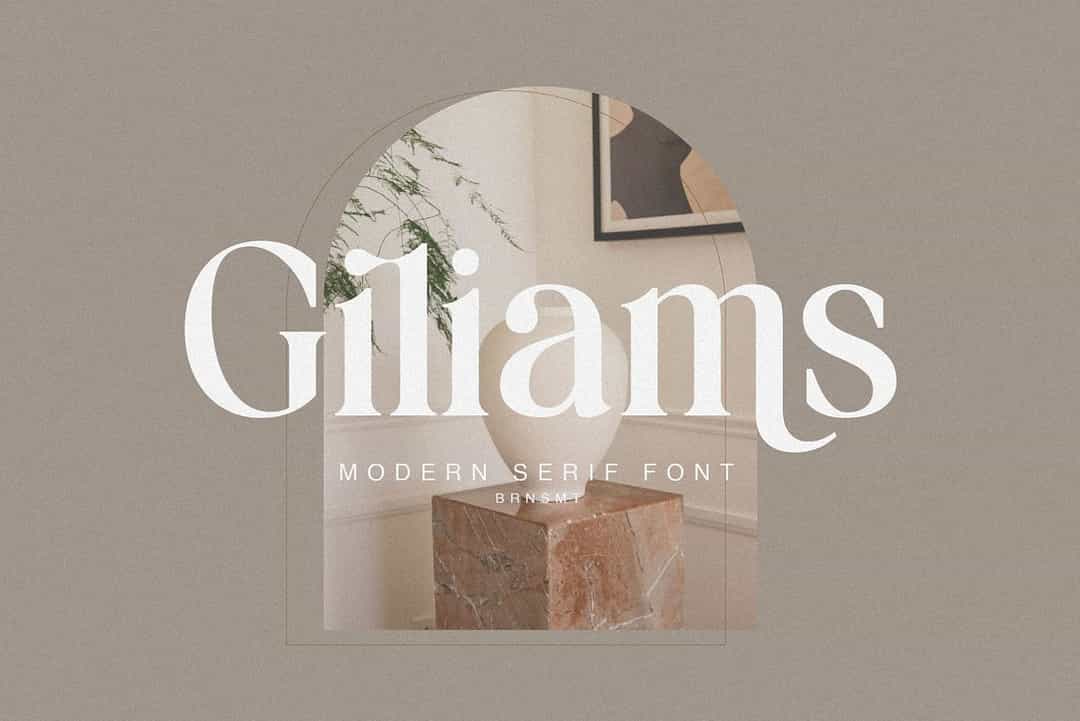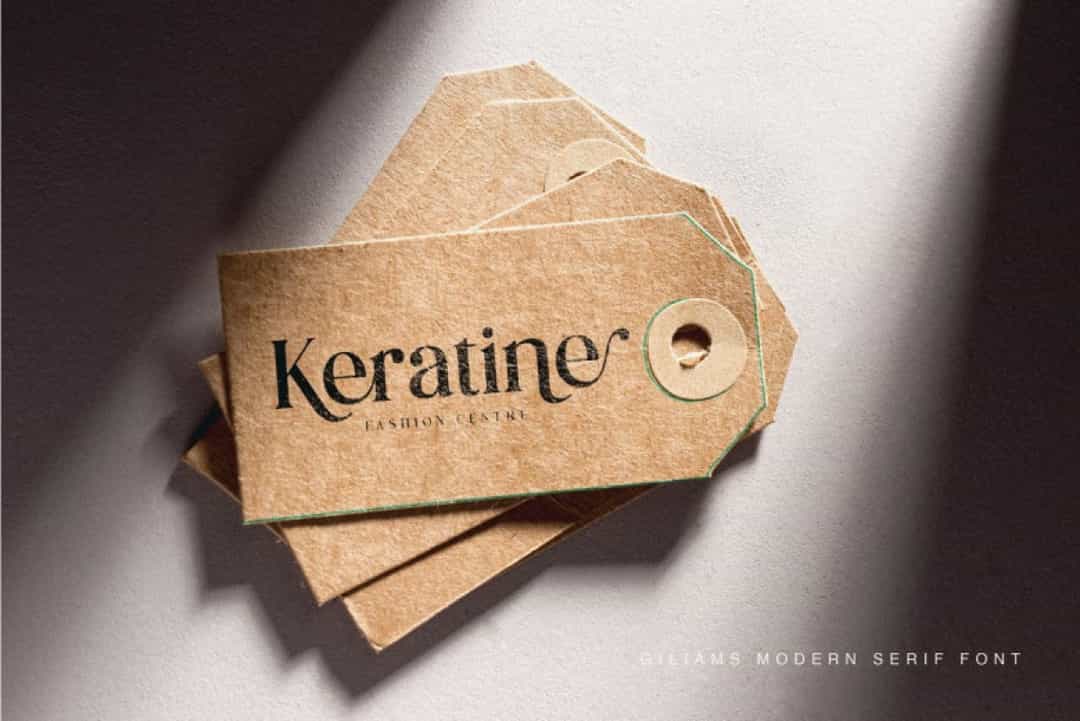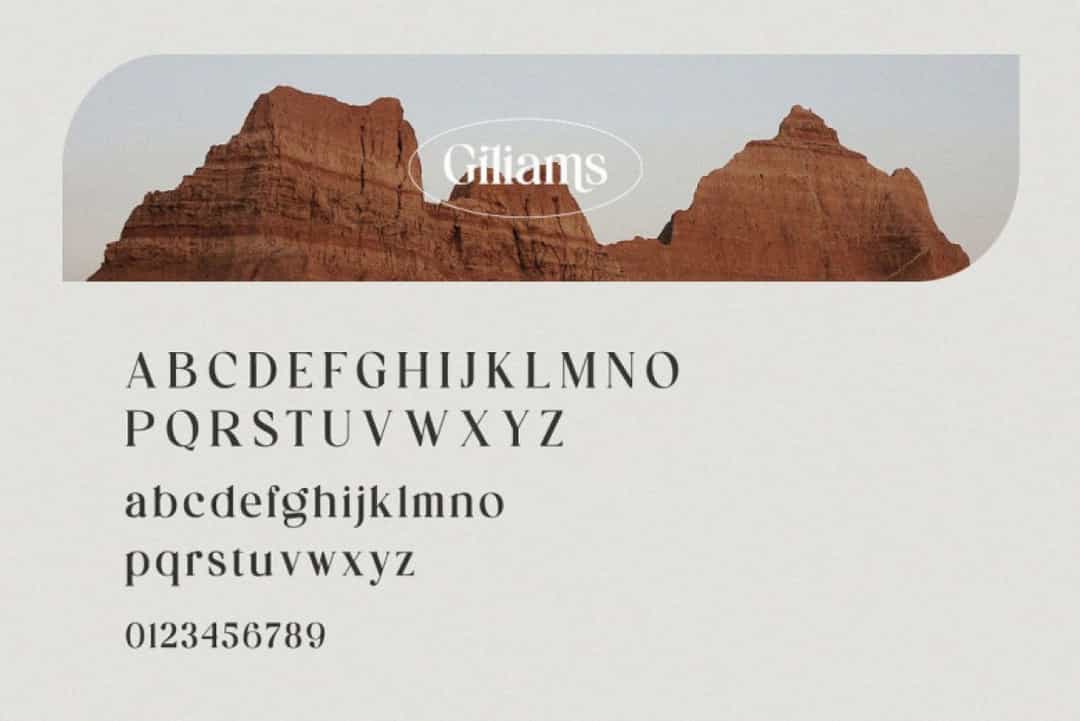
Giliams Font
Giliams is an exquisite, delicate, and elegant serif font created by BrandSemut. With its distinctive letters, this font can easily complement modern designs for various projects.